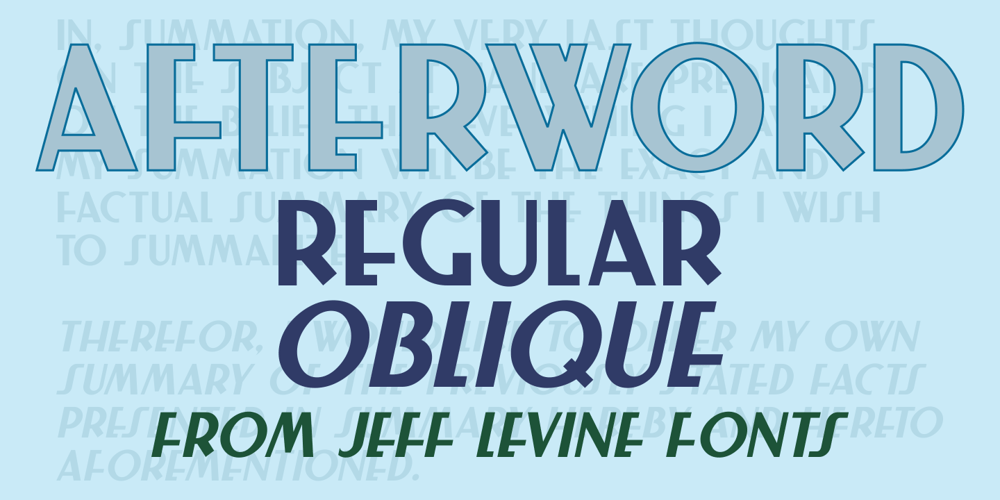
Afterword JNL Font Family was designed by Jeff Levine and published by Jeff Levine. Afterword JNL contains 2 styles and family package options. At the end of the 1931 gangster film “The Public Enemy” a hand lettered card offers up an afterword on the demise of Tom Powers (James Cagney’s character in the film) and how a “public enemy” is neither a man nor a character but a problem society must deal with.The text is in an Art-Deco influenced sans serif, and has been digitally recreated as Afterword JNL, which is available in both regular and oblique versions.